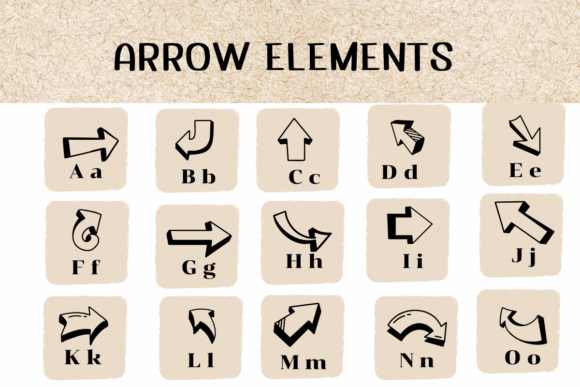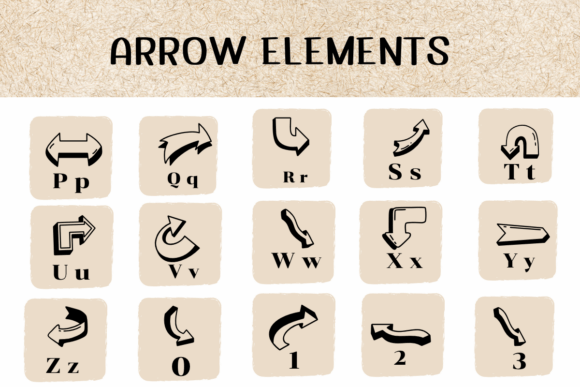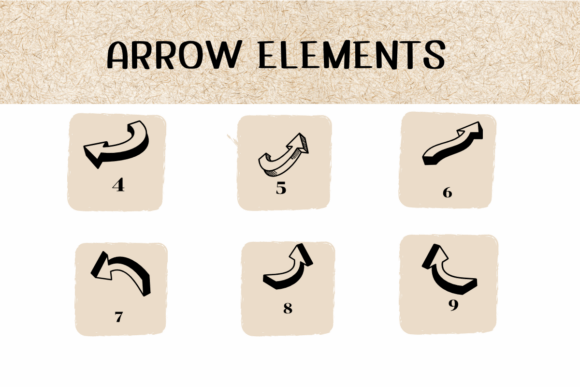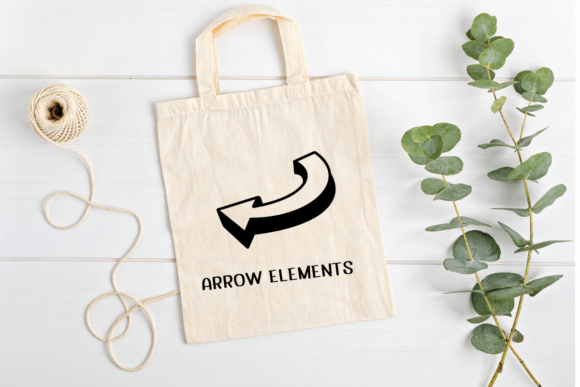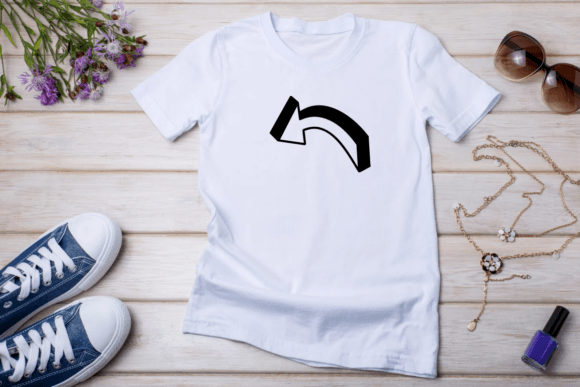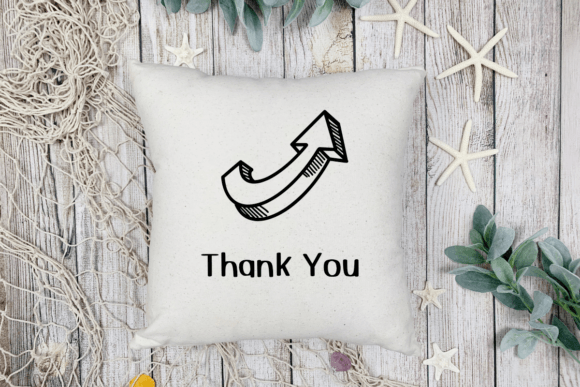
The Ultimate Guide to Arrow Elements Font: Unlocking Creative Possibilities
An Honest Review of Arrow Elements Font
Arrow Elements has been a game-changer for my creative projects. Here’s what I love about it:
- ✨ Unique and abstract designs that add a touch of personality to any project
- ✅ Extensive character set, perfect for creating custom graphics and illustrations
- 🔥 Highly versatile, suitable for a wide range of creative applications, from wedding invitations to logos and decorations
While Arrow Elements is an excellent font, it’s not without its quirks:
- 🤔 Some characters may require manual kerning to achieve optimal spacing
- ⚠️ Limited support for non-English languages
The Designer Inspiration Behind Arrow Elements
Arrow Elements was designed with the intention of providing a unique and versatile font for creative projects. The designer aimed to create a font that would inspire users to think outside the box and explore new possibilities in their designs. With its abstract theme and extensive character set, Arrow Elements has become a go-to font for designers and crafters alike.
| What type of projects is Arrow Elements best suited for? | Arrow Elements is highly versatile and can be used for a wide range of creative projects, including wedding invitations, DIY crafts, decorations, logos, and more. |